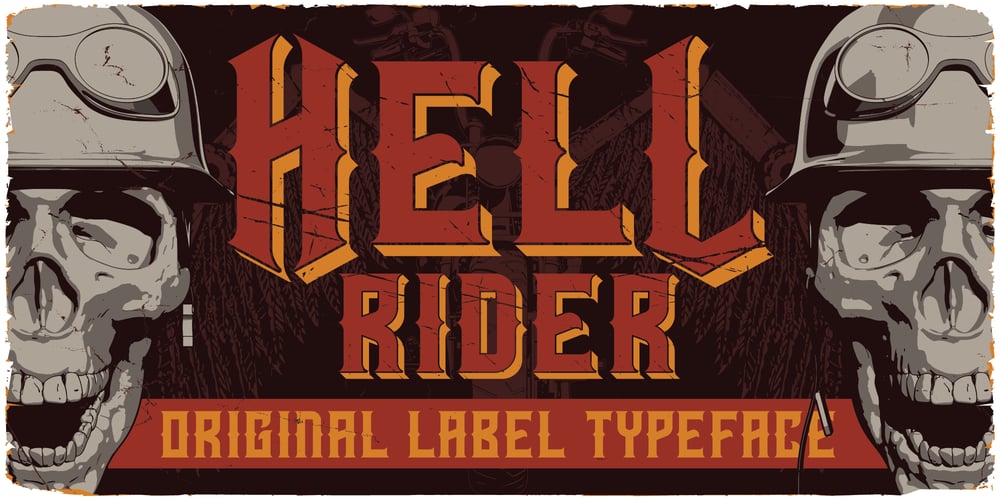
Hell Rider Font Family was designed by Oleg Voznyy and published by Vozzy. Hell Rider contains 6 styles and family package options. Introducing vintage label font named Hell Rider. This font has an additional characters and multilungual (check out all available characters on previews). This font family has six styles: Regular, Shadow, Shadow FX, Scratch, Scratch Shadow, Scratch Shadow FX. This font will look good on any vintage styled designs like a poster, T-shirt, label, logo, etc.